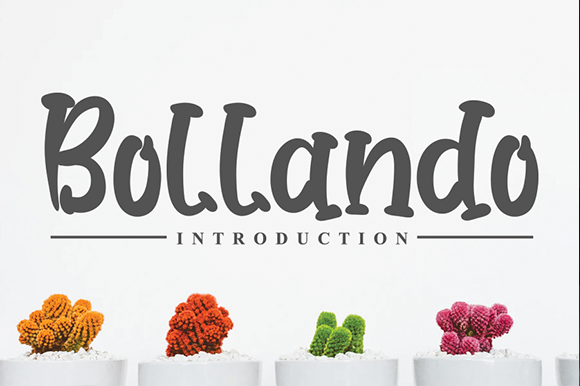
Discover the Perfect Balance of Elegance and Friendliness
Remember the moment when you stumbled upon the perfect font for your project? It’s a feeling of pure excitement and relief, knowing that your design is about to take off. For designers, finding the right font can make all the difference between a good design and a great one. That’s where the Bollando Font comes in – a classy and elegant display font that’s sure to leave a lasting impression.
Whether you’re creating a stunning wall display, designing a wedding invitation, or crafting a social media post logo, the Bollando Font is the perfect fit. Its friendly feel and sophisticated style make it a valuable addition to any designer’s toolkit. With the Bollando Font, you’ll be able to elevate your designs and communicate your message in a clear and engaging way.
Bollando Font Key Features
- Unique Characteristics: Bollando Font features a distinctive, hand-drawn style with elegant and sophisticated lines, making it perfect for creating a luxurious and high-end look in designs.
Bollando Font Review
Overall, I was impressed with the Bollando font’s unique and playful design. ✨ The font’s rounded edges and bold lines make it perfect for creating eye-catching headings and titles.
Some of the strengths of the Bollando font include:
- High-quality rendering in various font sizes and styles
- Effective use of negative space for a clean and modern look
- Support for a wide range of languages, making it a great option for global projects
- Customizable weights and styles for added flexibility
- The font may not be suitable for body text, as it can be quite difficult to read at smaller font sizes ⚠️
- The font’s bold style can be a bit overbearing in certain contexts ⚠️
- Use Bollando Font for headings and subheadings to add a playful touch.
- Combine with bold, colorful graphics to highlight attractions and activities.
- Pair Bollando Font with a clean, modern sans-serif font for body text to maintain a professional tone.
- Use Bollando Font to create a hand-drawn effect by varying line widths and styles.
- Combine with watercolor textures and soft colors to create a whimsical atmosphere.
- Pair Bollando Font with a simple, elegant font for the quote to maintain a balanced look.
- Use Bollando Font to create a retro-style look by applying a
In terms of overall impression, I would give the Bollando font 4 out of 5 stars. While it excels in certain areas, it falls short in others. With some careful consideration of its limitations, I believe the Bollando font has the potential to be a valuable addition to any design project.
Design Tip:
Use Bollando Font in different sizes and styles to create visual hierarchy and emphasize important information.
Project 2: Hand-Drawn Quote Art
Create a unique piece of quote art that showcases a motivational phrase using the Bollando Font.
How to use Bollando Font:
Design Tip:
Experiment with different brush styles and sizes to achieve a unique, hand-drawn look.
Project 3: Retro-Style Menu Board
Create a fun and playful menu board that showcases a diner’s offerings using the Bollando Font.